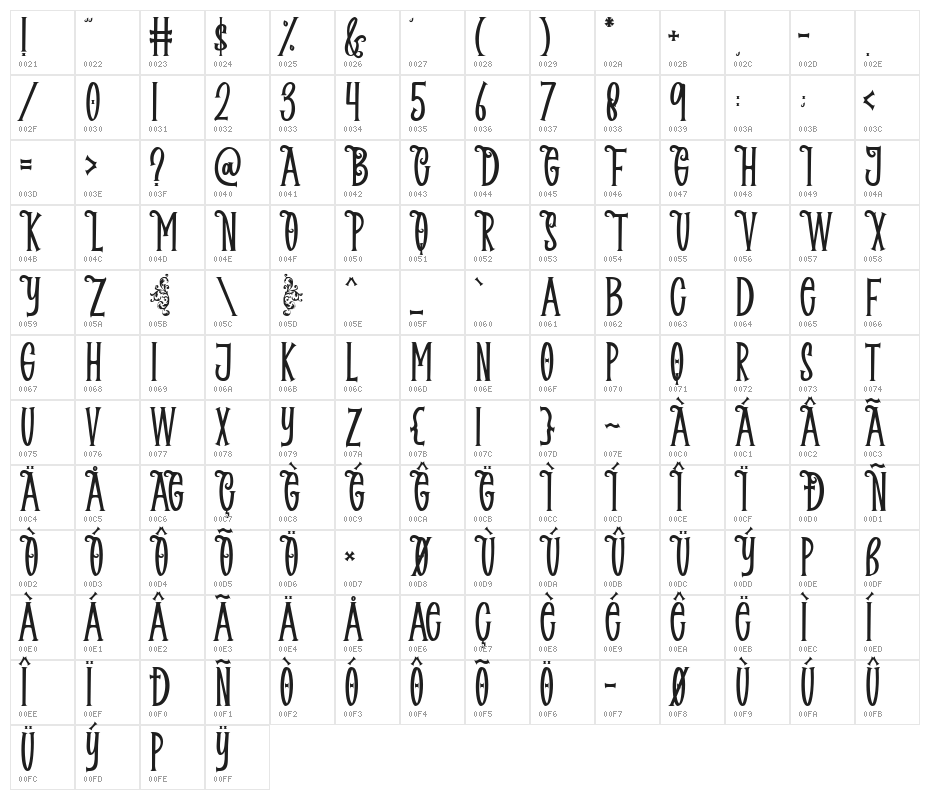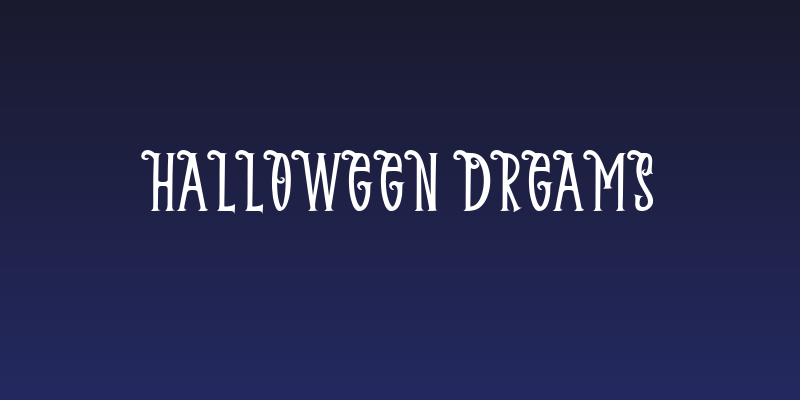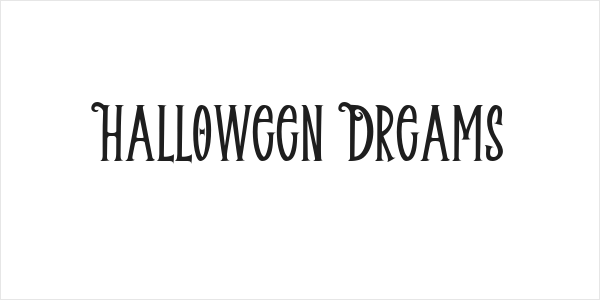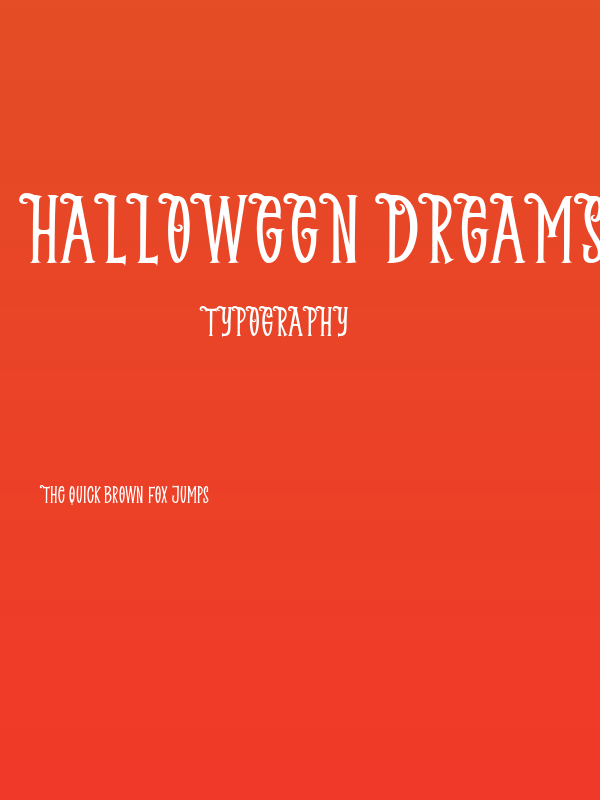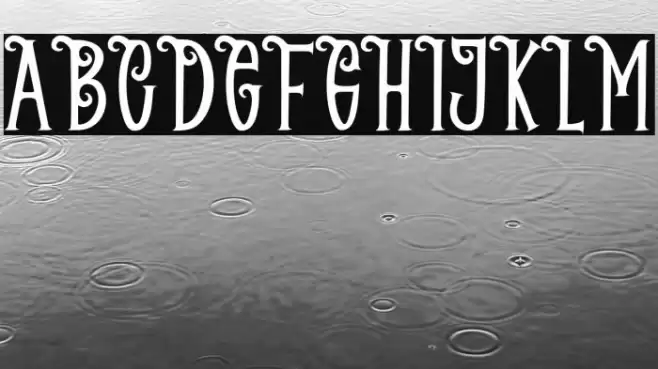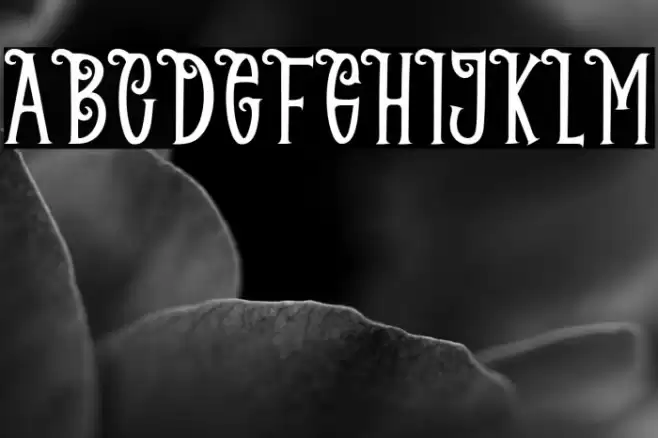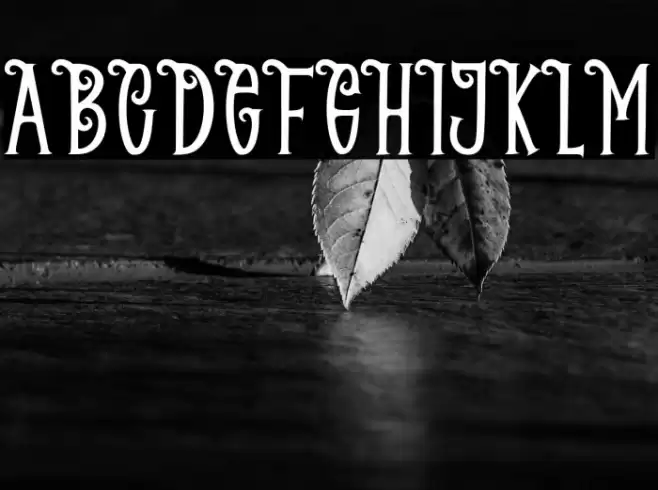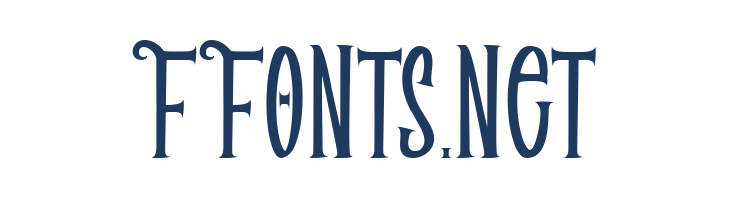
Halloween Dreams Font
This font exudes a whimsical and spooky charm, perfect for Halloween-themed projects. The characters are tall and narrow with playful, exaggerated serifs that give it a quirky and eerie appearance. The uppercase letters have a consistent height, while the lowercase letters maintain a similar style, enhancing the font's cohesive look. The numbers and special characters are designed to match the overall theme, with unique twists and curves that add to its decorative nature. This font is ideal for capturing attention and setting a playful yet mysterious tone.
| Proposed Projects | Ideal for Halloween invitations, themed posters, party decorations, and spooky branding. |